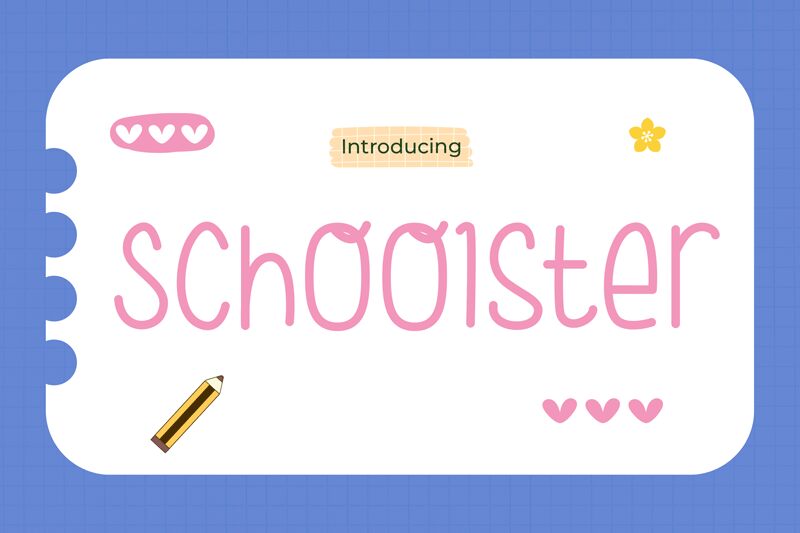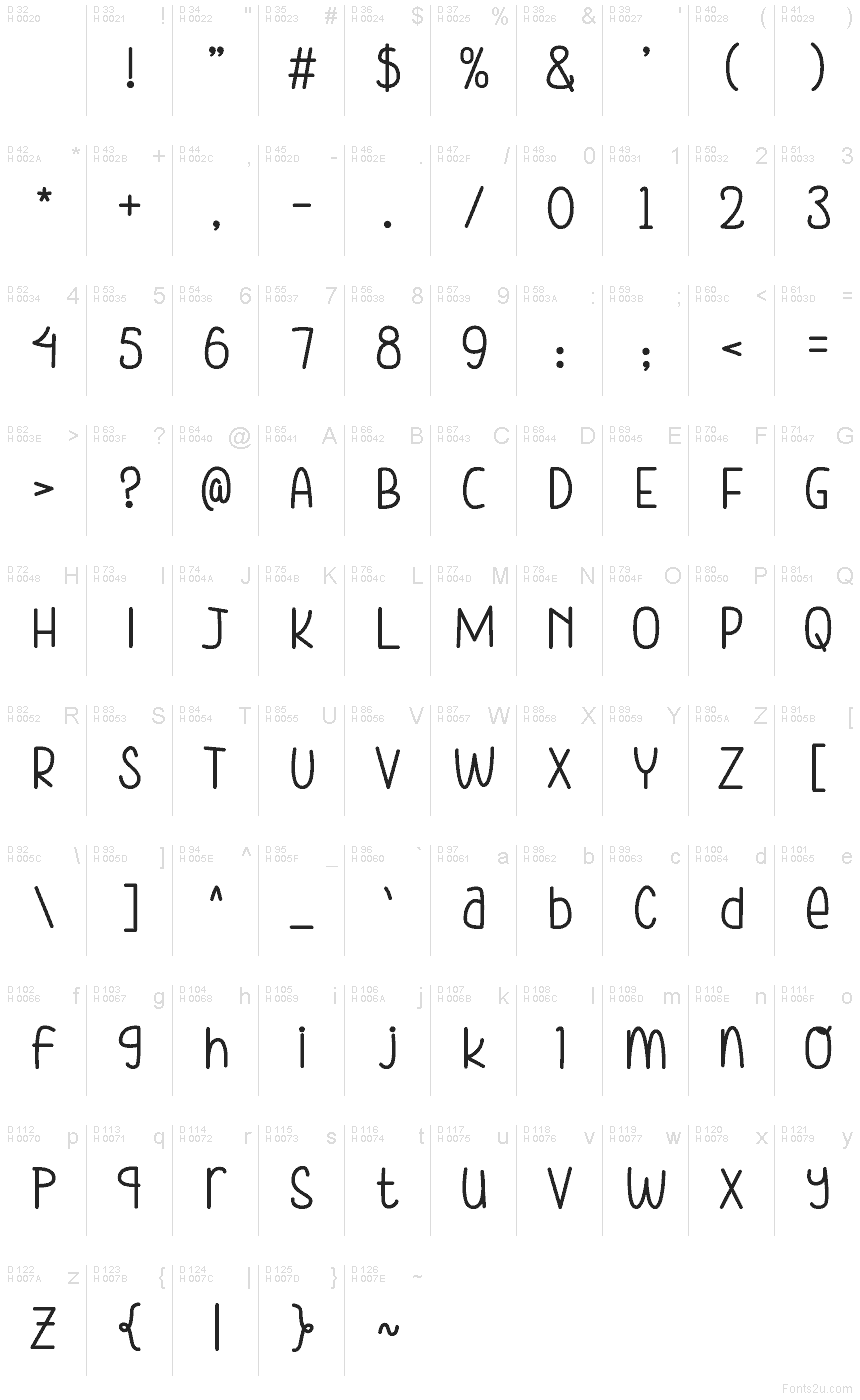
Schoolster
Schoolster font by Pinisiart is a free handwritten typeface. Its tall, rounded letters and soft, marker-like strokes give it a friendly, classroom vibe, while the steady rhythm keeps words easy to scan. The loopy forms feel playful without getting messy, so headlines pop and short paragraphs stay readable on busy materials.
Using Schoolster, you’ll get cheerful clarity for classroom posters, worksheets, flashcards, bulletin boards, STEM camp flyers, activity books, and kids’ birthday invites. The consistent spacing helps when you need quick, legible notes at small sizes, and it scales nicely for big signage. Pair this free font with a clean sans-serif for body copy, and give it a touch of extra line spacing to keep the bounce breathable.